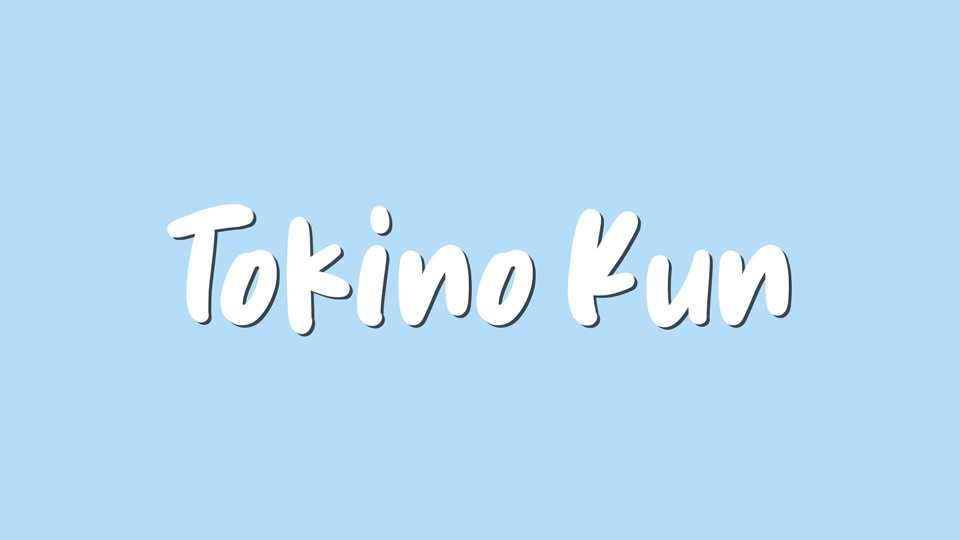
Download Tokino Kun, a handwritten typeface that effortlessly blends a carefree charm with a touch of comic flair. Its organic letterforms exude a sense of ease and approachability.